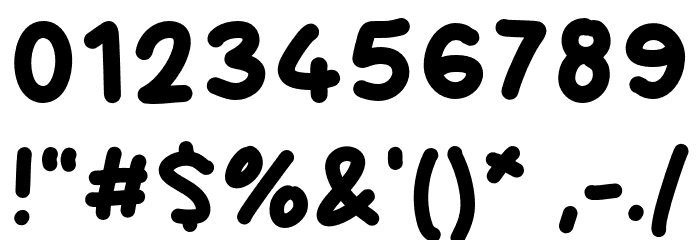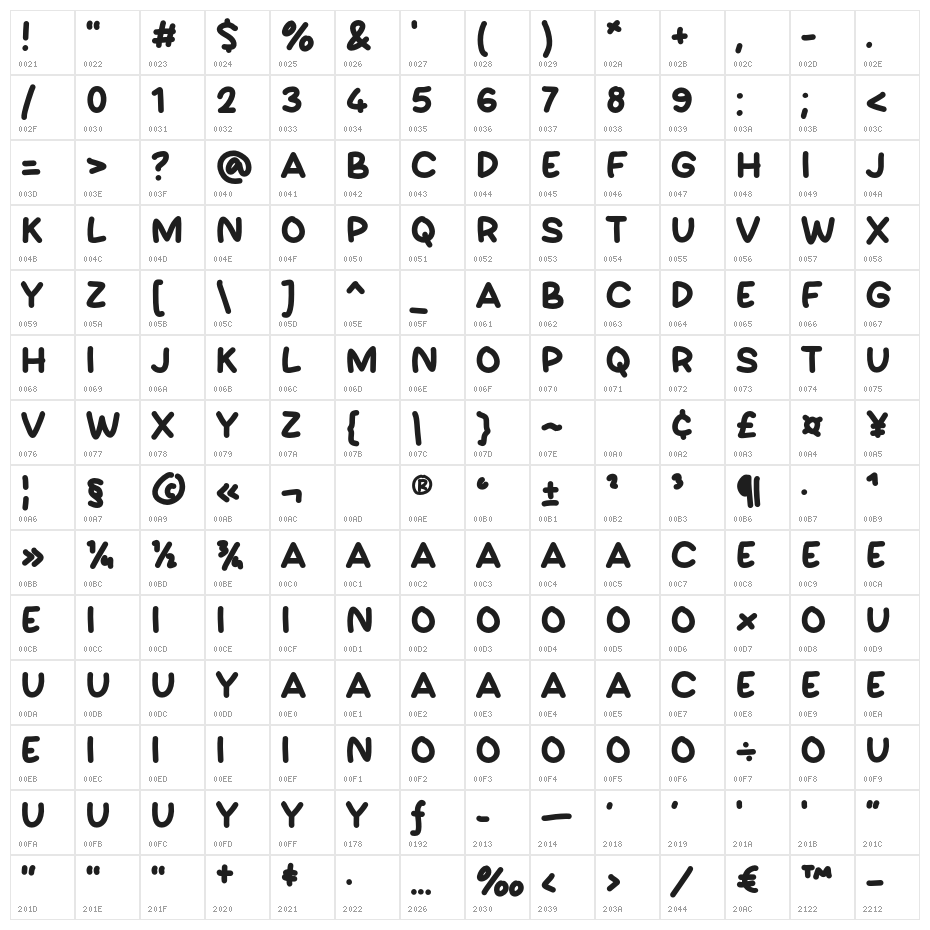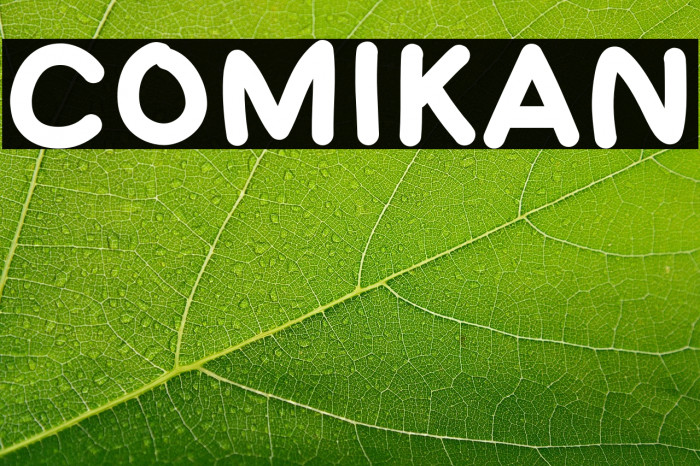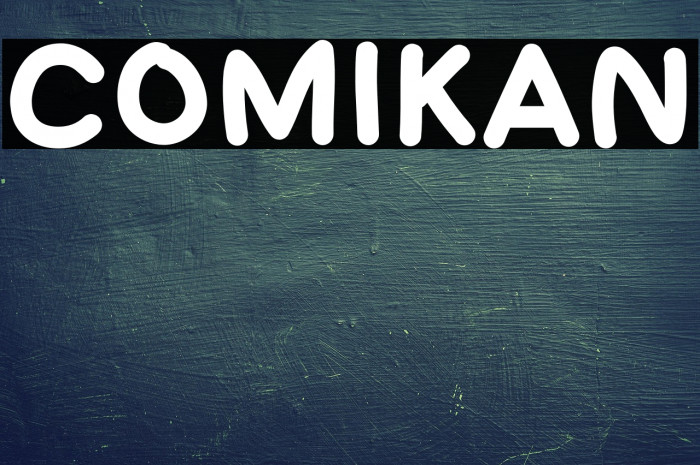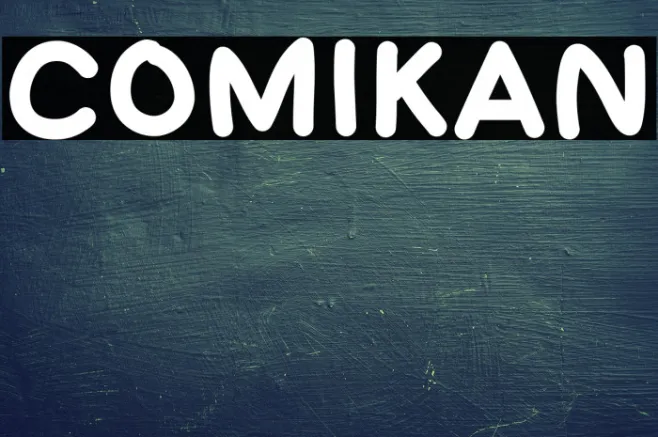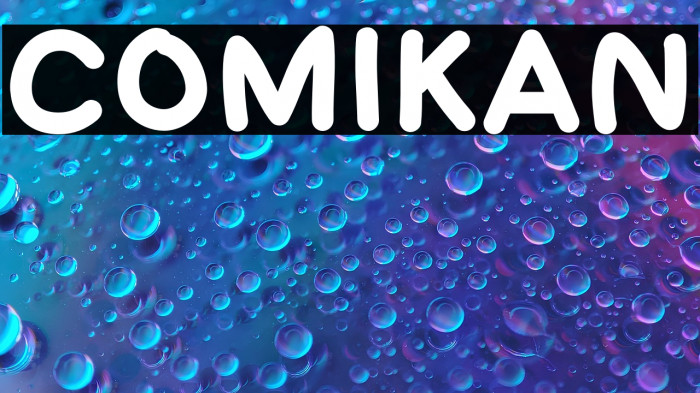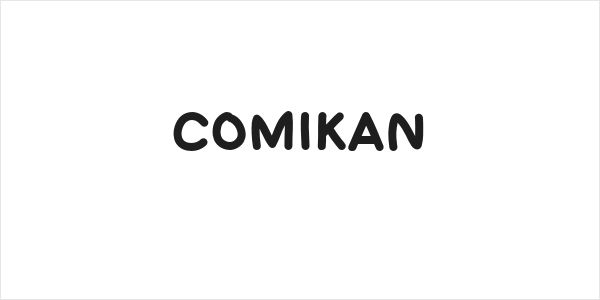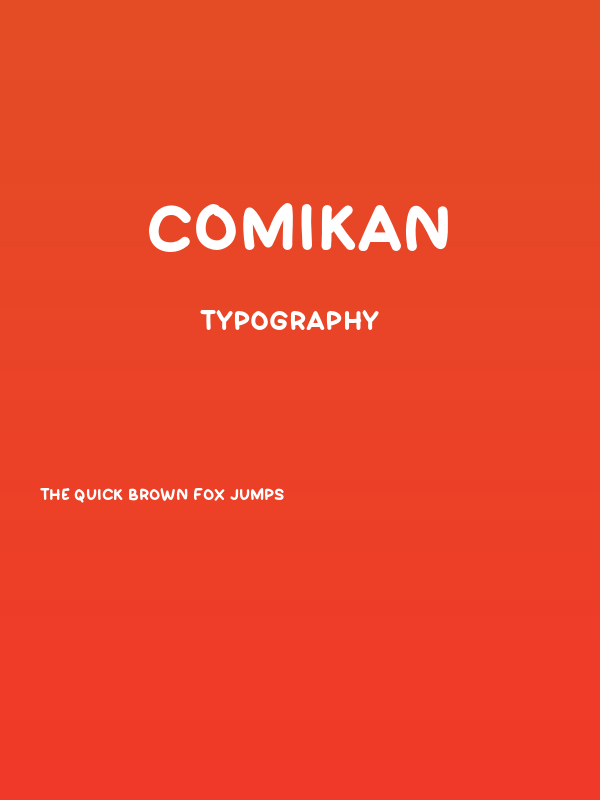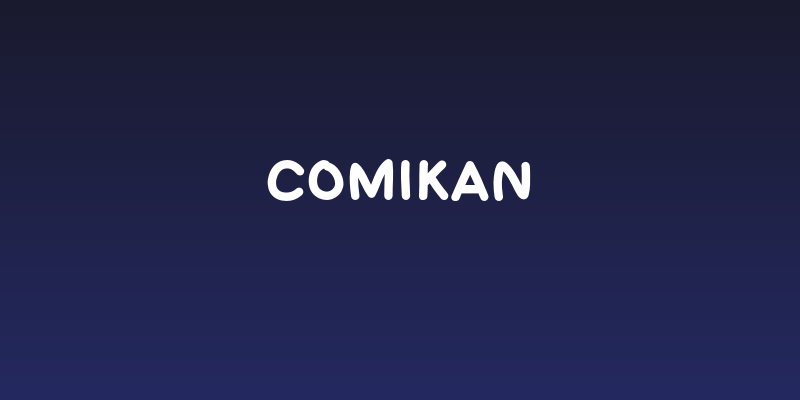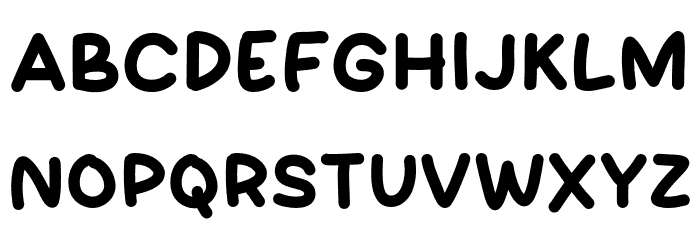
COMIKAN Font
COMIKAN Description
This playful and bold font exudes a comic-like charm with its rounded and slightly irregular letterforms. The characters are thick and substantial, giving a sense of fun and approachability. The uppercase and lowercase letters maintain a consistent style, with a slight bounce that adds to the whimsical feel. Numbers and special characters are equally bold, ensuring readability and maintaining the overall playful aesthetic. The font's design is reminiscent of hand-drawn lettering, making it ideal for projects that require a touch of humor and creativity.
| Overall Style | Playful, Comic |
| Proposed Projects | Ideal for comic books, children's books, playful branding, and informal posters. |